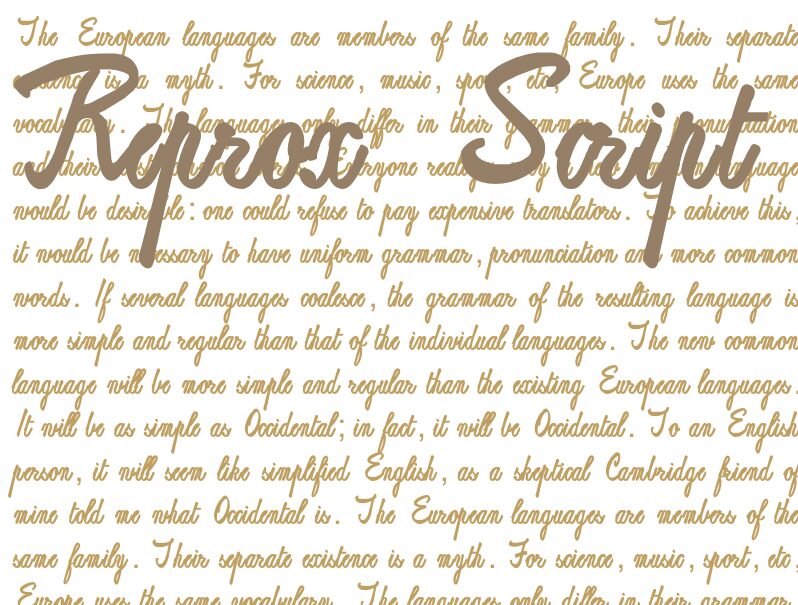
ReproxScript by Paulo W of IntellectaDesign is a free brush script built from broad, forceful strokes that form a sweeping, hand-painted silhouette. Rounded sweeps keep the lettering lively and direct.
Album packaging and cafe branding draw on the same expressive brushwork, though one can lean into stage performance and the other into the informal mark of a freshly painted shop sign. It is also suited to festival posters, music merchandise, and editorial covers, where the sweeping shapes can merge with illustrated ribbons or motion lines and give a product line a recognisable signature rather than sitting apart as neutral type.